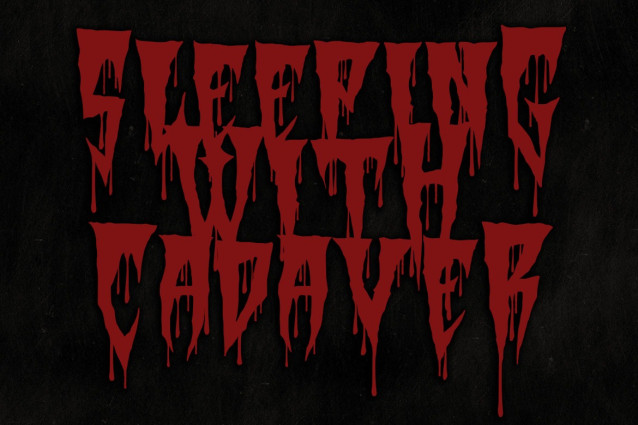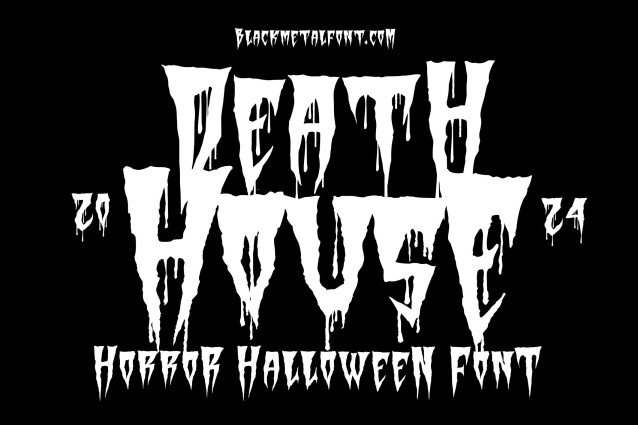
Death House Font
Death House Font is a spine-chilling, horror-inspired font designed to bring a touch of the macabre to your Halloween and horror-themed projects. With its jagged, irregular lines and ominous presence, Death House captures the essence of fear and mystery, making it perfect for creating eerie posters, creepy invitations, haunted house signs, and more.
Unique Design: Each character is meticulously crafted to resemble dripping blood or melting wax, adding a gruesome aesthetic to your text.
Versatility: Death House is ideal for various creative applications, from horror movie titles to spooky party flyers and gothic-themed designs.
Atmospheric Impact: The bold, unsettling appearance of the font instantly sets a dark and foreboding tone, perfect for any project that aims to evoke a sense of dread and suspense.
Whether you’re looking to enhance your Halloween decorations or add a chilling twist to your design work, Death House is the perfect choice to bring your terrifying visions to life.